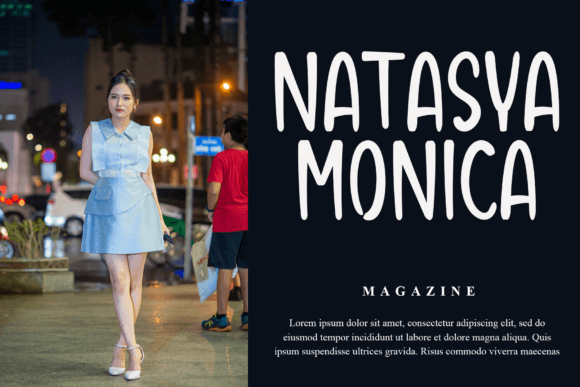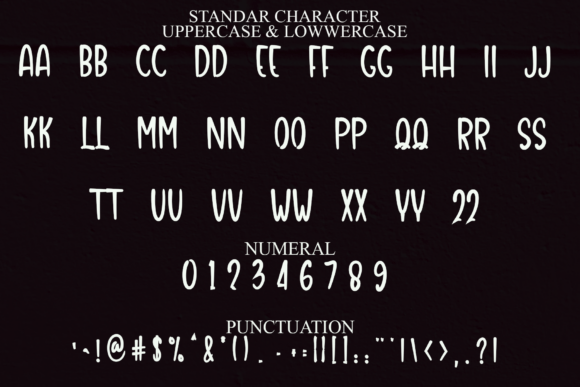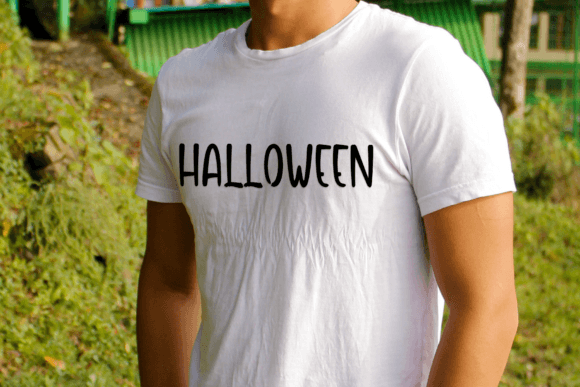
Introduction to Miracle Ghost Font
Miracle Ghost is a flowing handwritten font, described by an elegant touch, perfect for your favorite projects.
Key Features of Miracle Ghost Font
Why Choose Miracle Ghost Font?
Miracle Ghost Font offers exceptional quality and versatility, making it a valuable addition to your design toolkit. Whether you’re creating for personal projects or commercial use, Miracle Ghost Font delivers professional results.